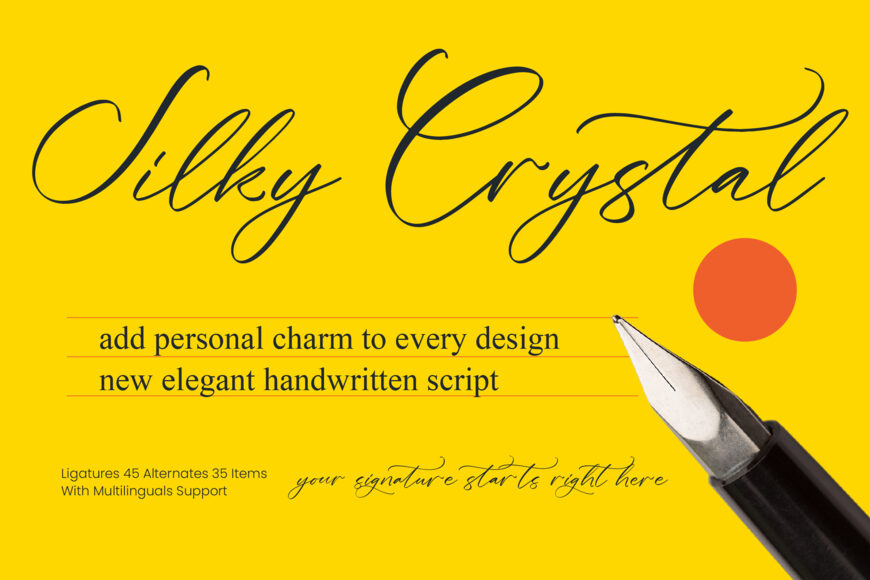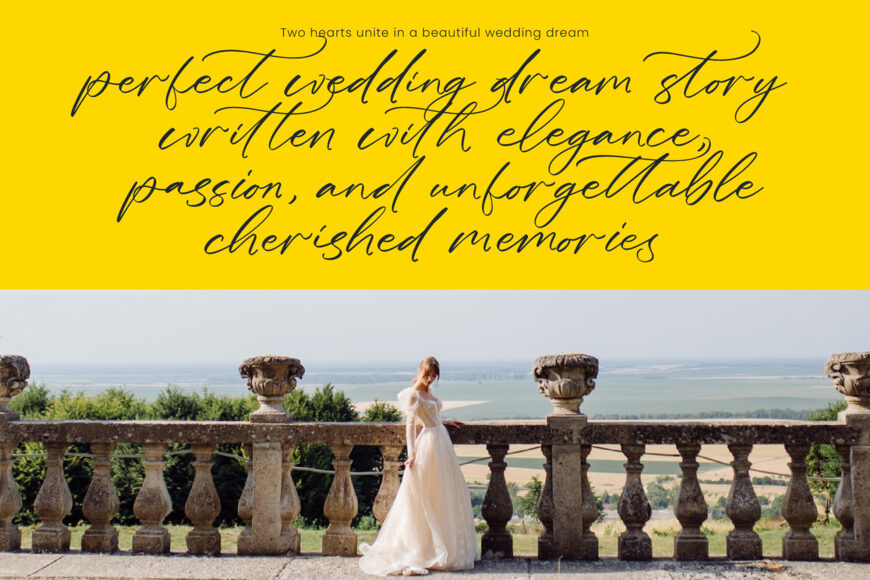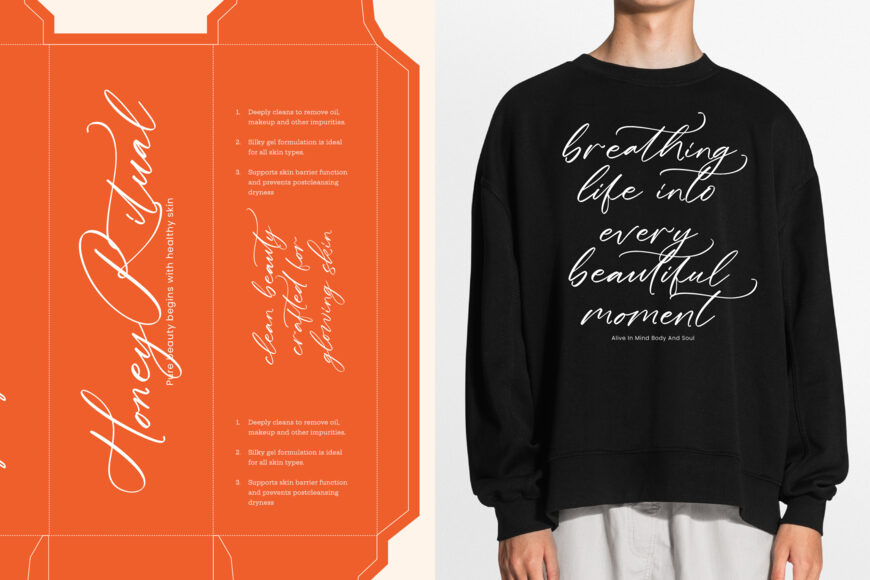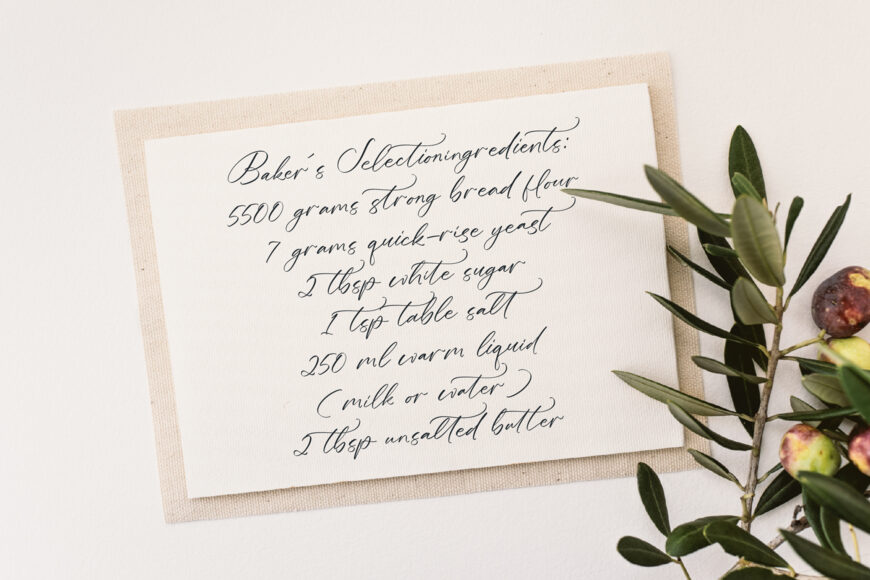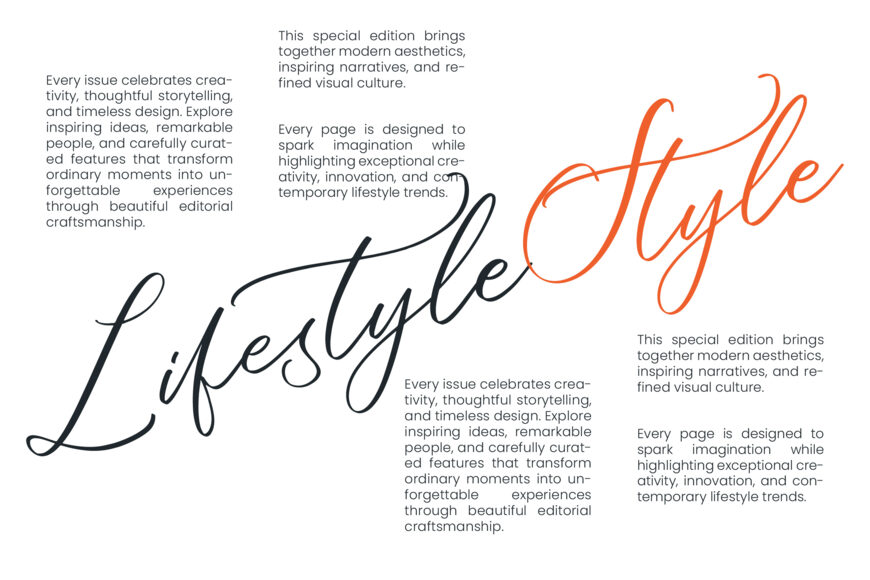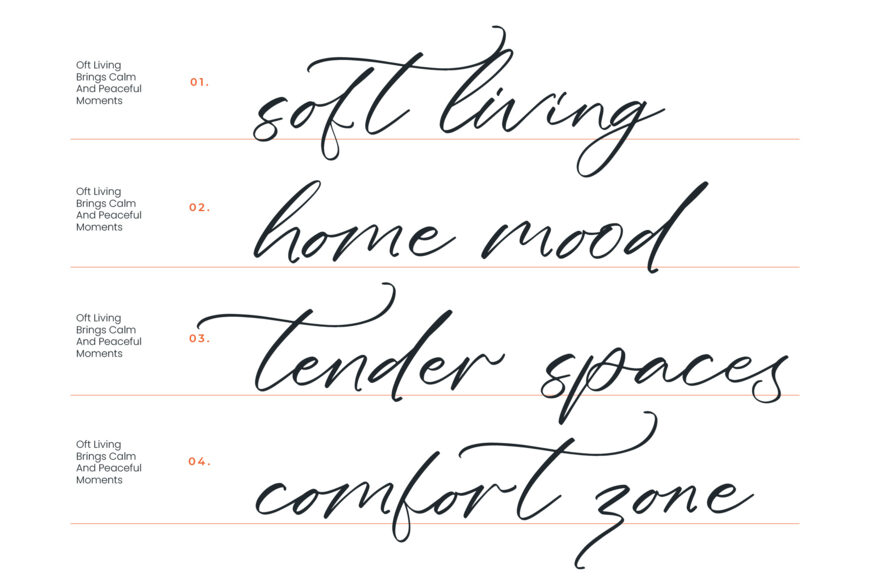
Elevate your designs with Silky Crystal, an elegant handwritten script that blends sophisticated calligraphy with natural, flowing movement. Its refined strokes create an authentic handwriting effect, bringing exclusivity and grace to every project. With more than 45 ligatures and 35 alternates, this versatile typeface offers countless ways to customize expressive, organic compositions.
Ideal for luxury identities, premium packaging, fashion editorials, wedding invitations, refined logos, and striking social media graphics, Silky Crystal helps create a distinctive and memorable visual presence for discerning audiences.